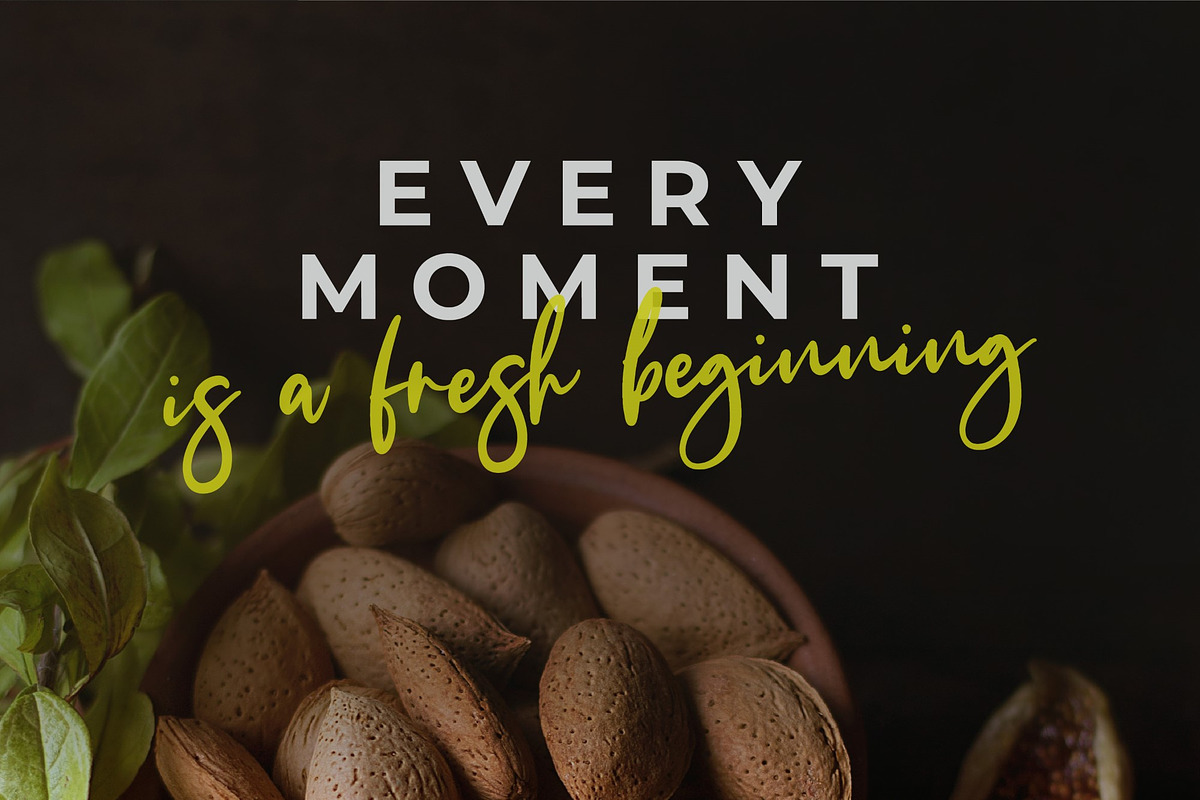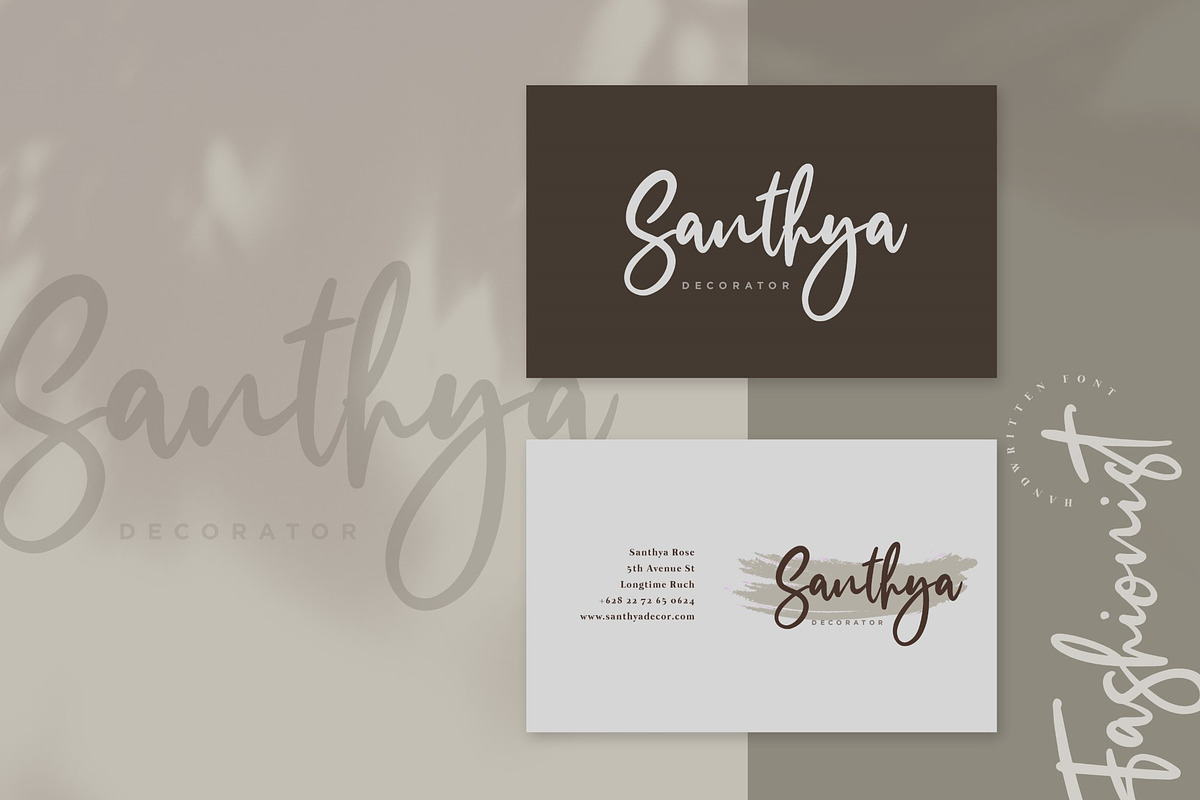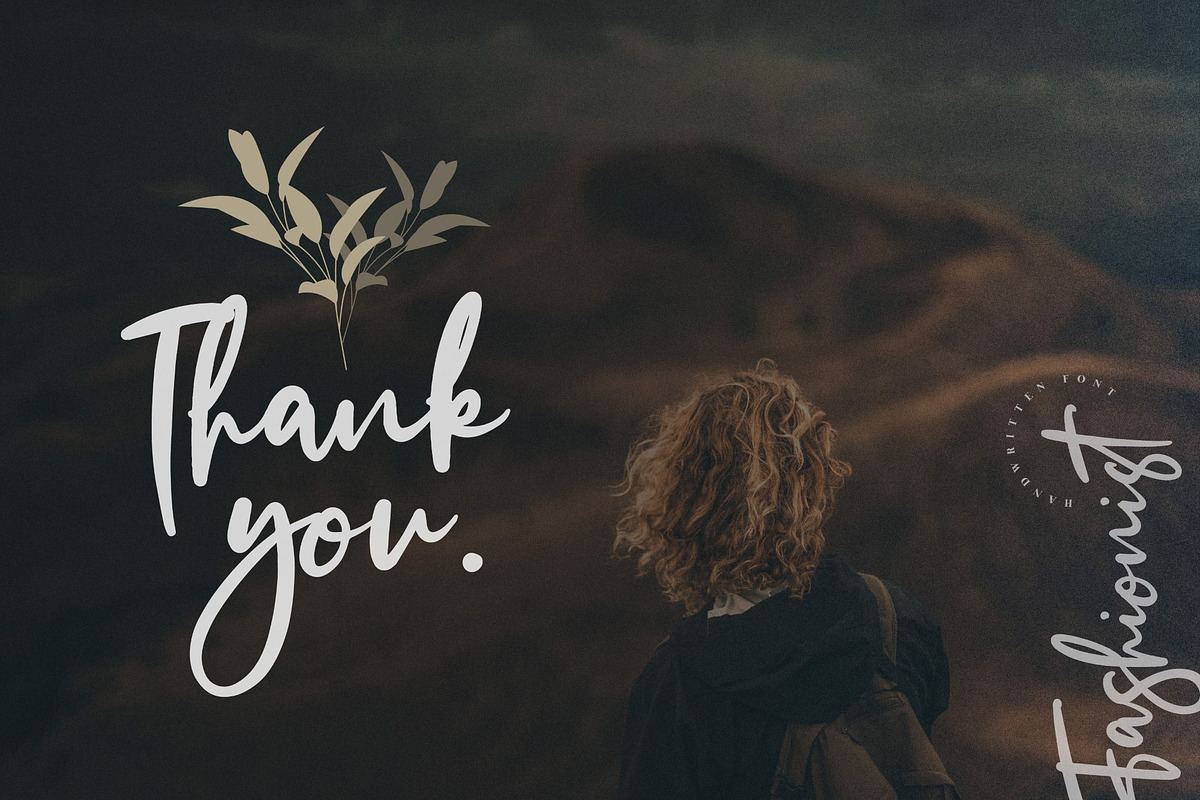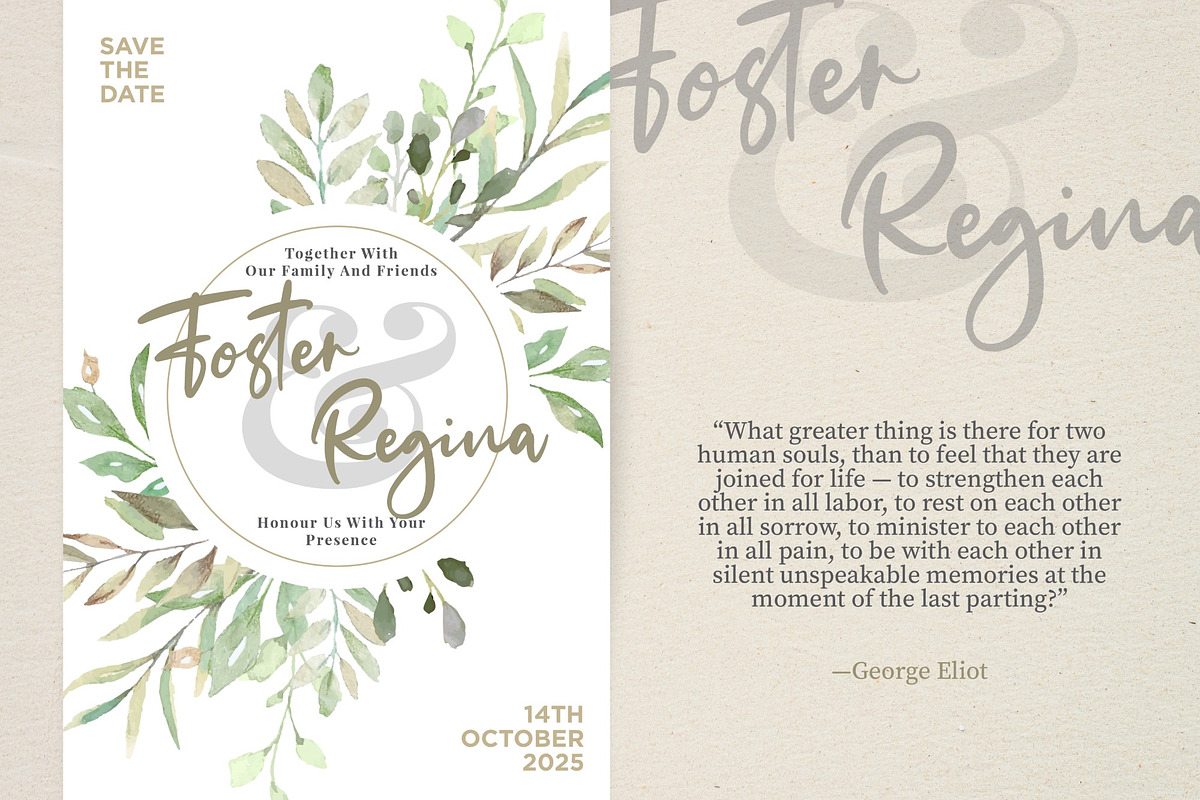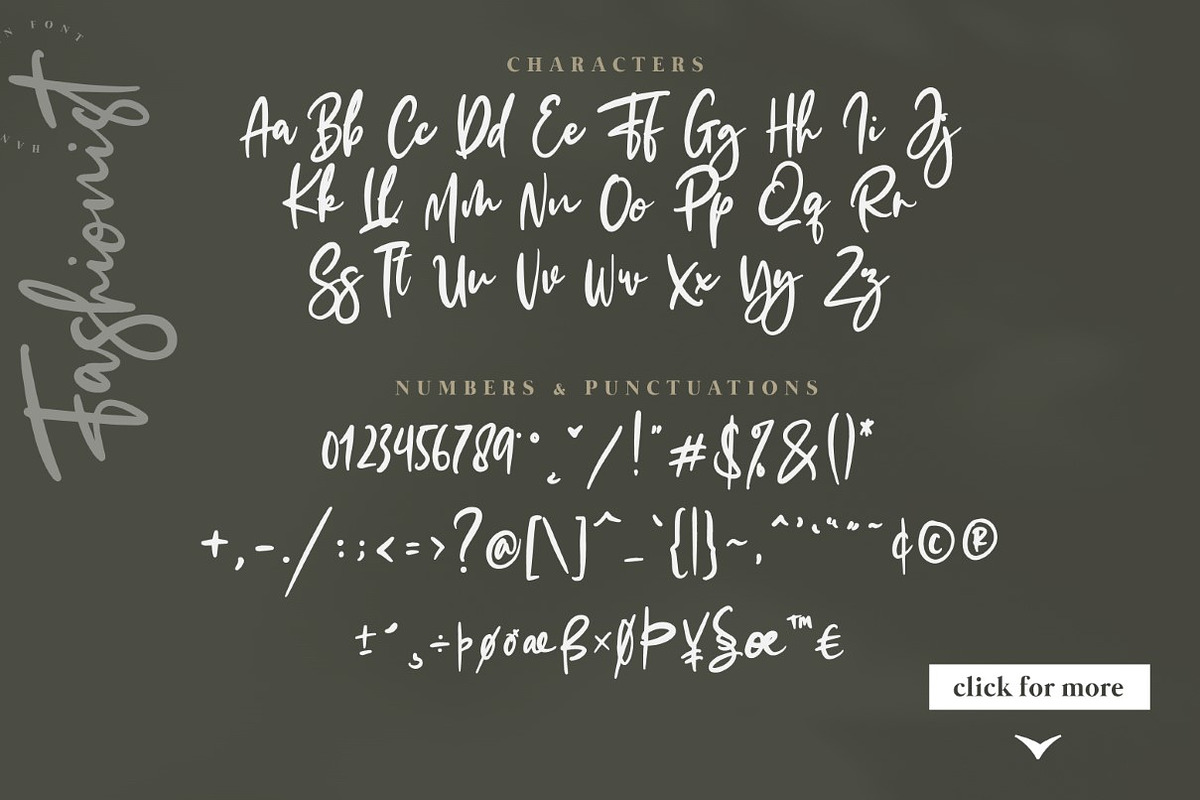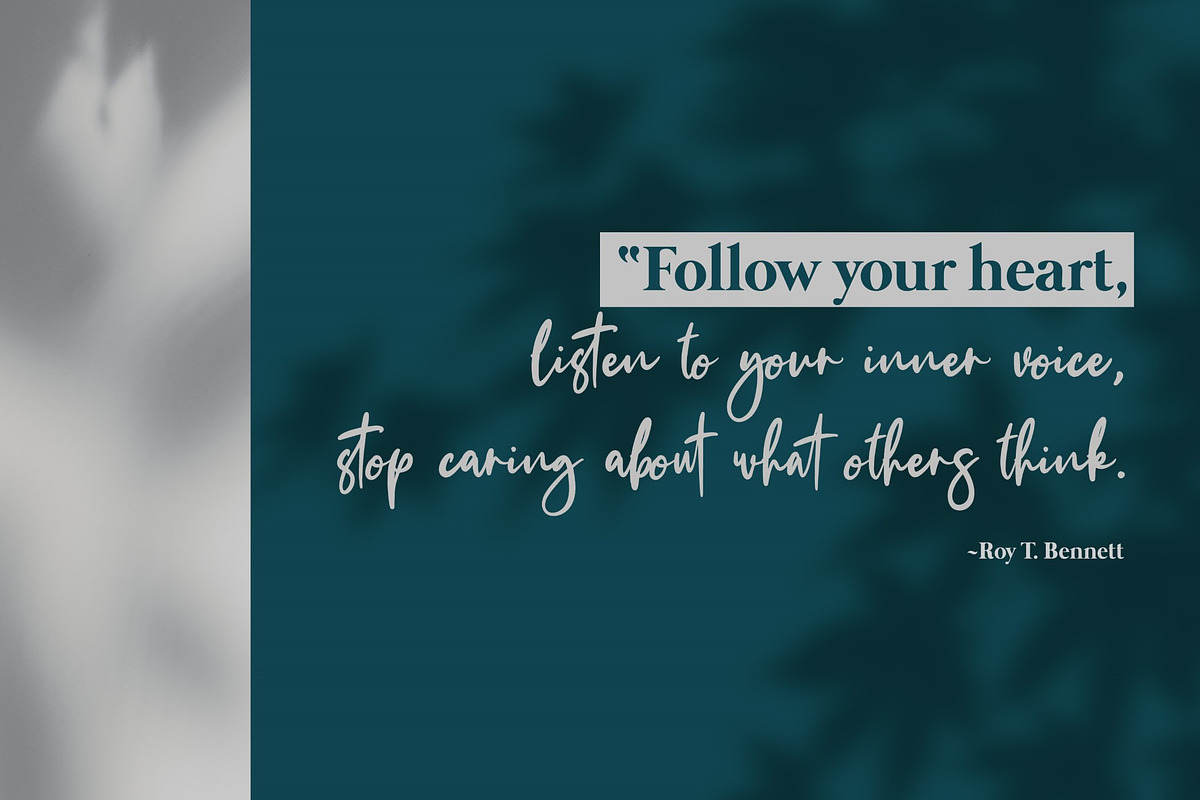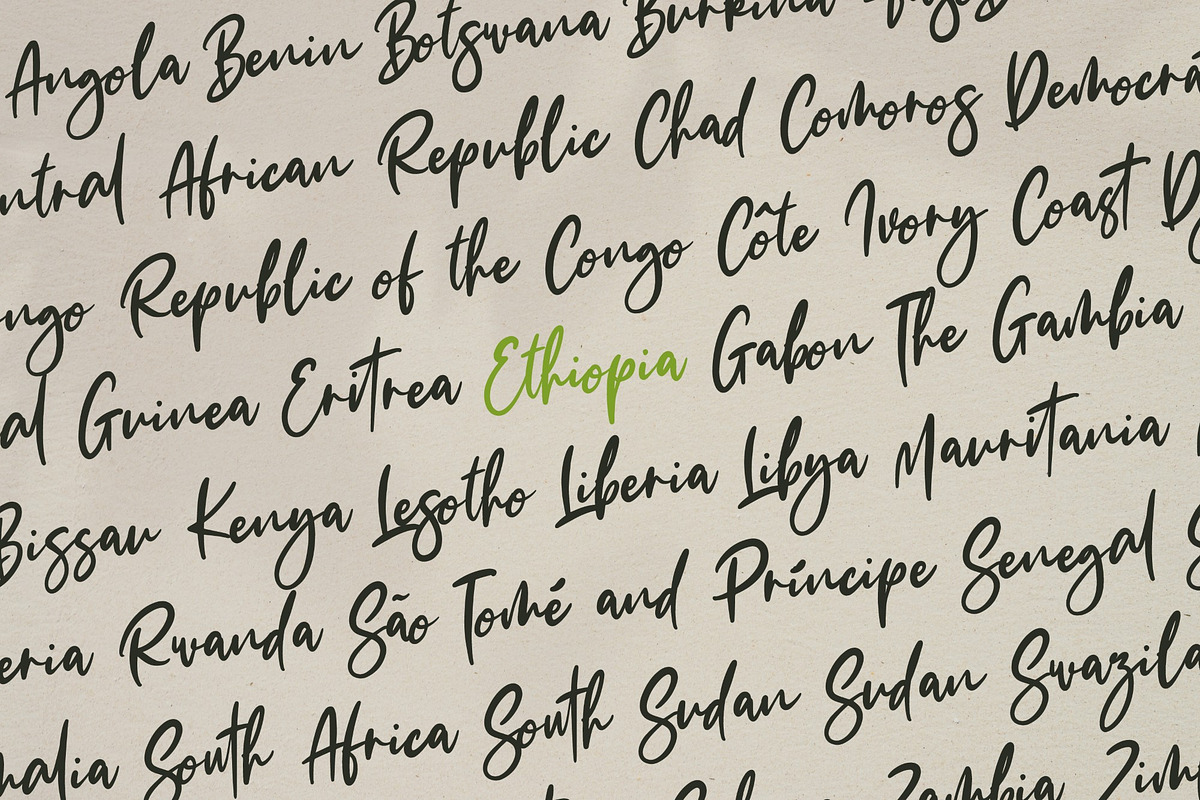
The Fashionist + Extras
Introducing The Fashionist Font and Extras
The Fashionist is a natural handwritten font, this font Is perfect for logo, invitation, stationery, wedding designs, social media posts, advertisements, product packaging, product designs, label, photography, watermark, special events or anything.
Comes with full set of uppercase and lowercase letters, lowercase beginning & ending swashes , multilingual symbols, numerals, punctuation.